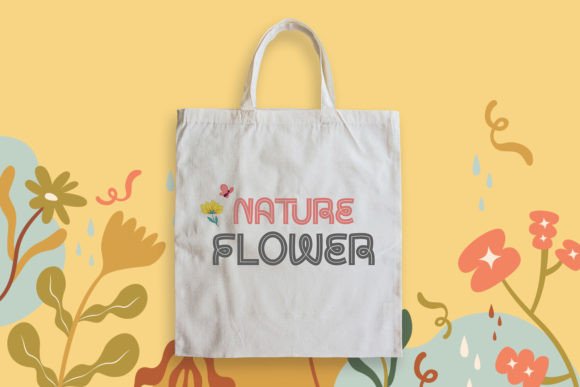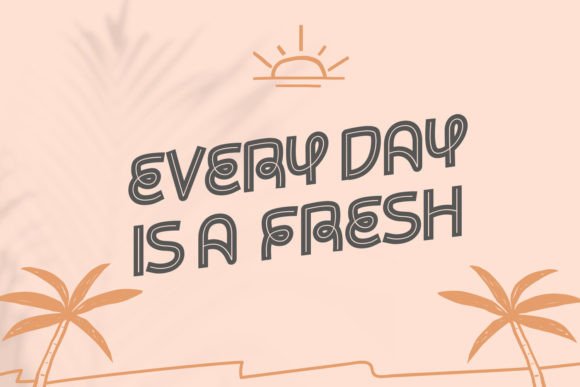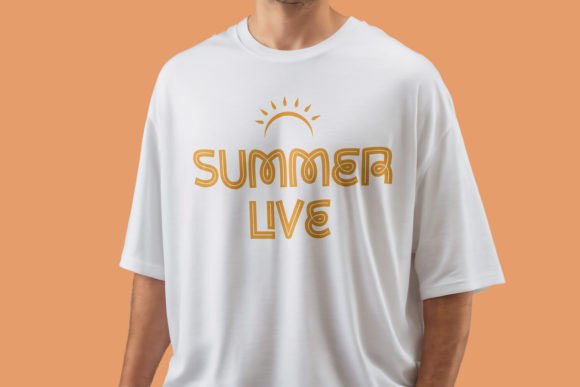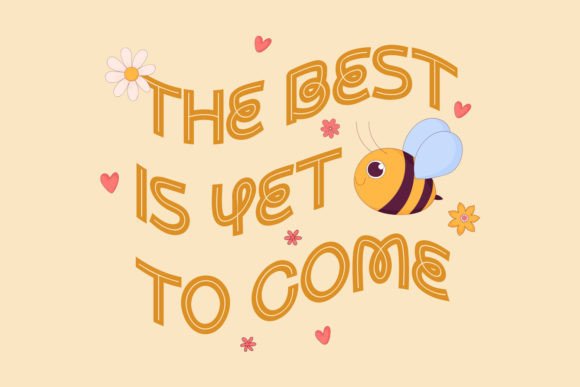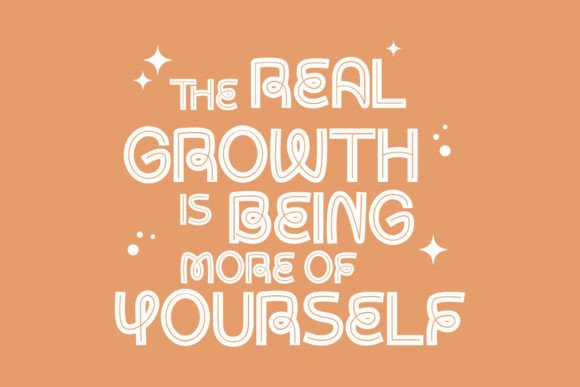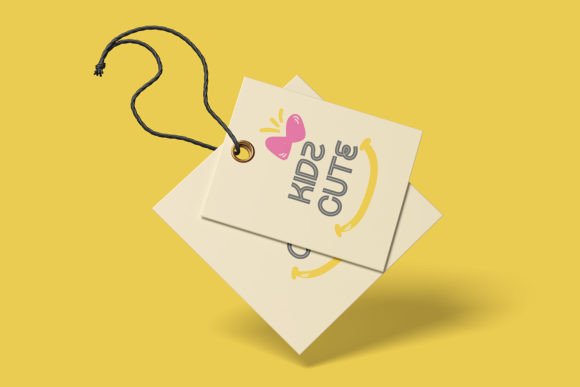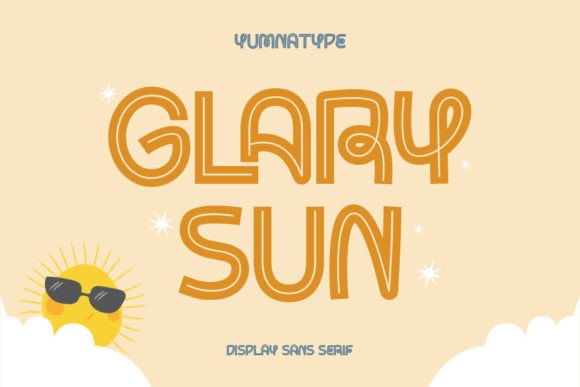
Introducing Glary Sun Font: A Bold and Striking Display Font
Are you looking for a font that can add a touch of warmth and energy to your designs? Look no further than Glary Sun Font. This bold and striking display font is perfect for designers and crafters who want to make a statement with their work. In this article, we’ll take a closer look at the features and benefits of Glary Sun Font, and explore how it can elevate your designs to the next level.
A Bold and Commanding Presence
Glary Sun Font is an all-caps display font that exudes confidence and authority. Each letter is designed with a thick weight, giving it a solid and commanding presence on the page. The font’s bold design makes it perfect for headlines, titles, and other display text, where you want to grab the reader’s attention and make a lasting impression.
A Unique Blend of Stability and Character
One of the standout features of Glary Sun Font is its unique blend of stability and character. The square shape of the font adds a sense of stability and structure, making it perfect for designs that require a sense of balance and harmony. At the same time, the softened corners add a touch of uniqueness and character to the overall design, preventing it from feeling too rigid or sterile.
Adding Depth and Dimension with Inline Detailing
Another feature that sets Glary Sun Font apart is its inline detailing. The font features a clever use of inline details, which add depth and dimension to the design. This not only enhances the visual appeal of the font but also makes it stand out from more basic display fonts. The inline detailing adds a level of sophistication and elegance to the font, making it perfect for high-end designs and branding projects.
Glary Sun Font is a versatile font that is perfect for a wide range of design applications. Whether you’re a designer looking to create a bold and striking logo, or a crafter looking to add a personal touch to your DIY projects, Glary Sun Font is a great choice. The font is easy to use and can be applied to a variety of projects, from brochures and flyers to social media graphics and website headers.
- Bold and striking design: Glary Sun Font is a bold and striking display font that is perfect for making a statement.
- All-caps design: The font features an all-caps design, making it perfect for headlines, titles, and other display text.
- Thick weight: Each letter is designed with a thick weight, giving it a solid and commanding presence on the page.
- Square shape with softened corners: The font features a square shape with softened corners, adding a touch of uniqueness and character to the design.
- Inline detailing: The font features clever inline detailing, adding depth and dimension to the design.
Glary Sun Font is a bold and striking display font that is perfect for designers and crafters who want to add a touch of warmth and energy to their designs. With its all-caps design, thick weight, and unique blend of stability and character, Glary Sun Font is a versatile font that can be applied to a wide range of design applications. Whether you’re looking to create a bold and striking logo, or add a personal touch to your DIY projects, Glary Sun Font is a great choice.
Get Ready to Shine with Glary Sun Font